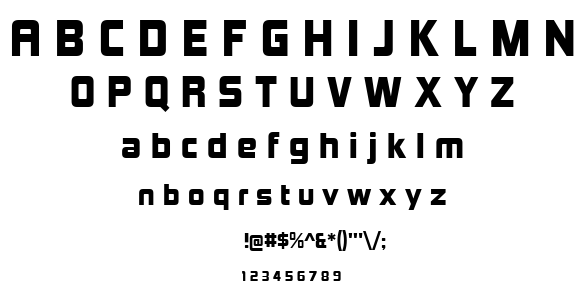
Kimberley was inspired by several 1970s corporate/industrial logotypes. The original open 4 and knock-kneed W are available in OpenType savvy applications using the stylistic alternates feature. Don’t forget to read the files inside the zip for details. Updated in 2012.